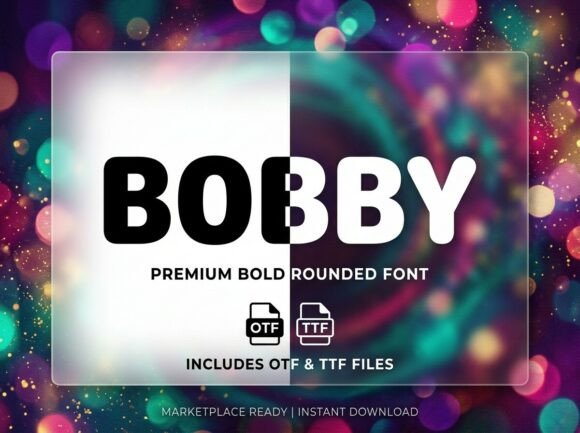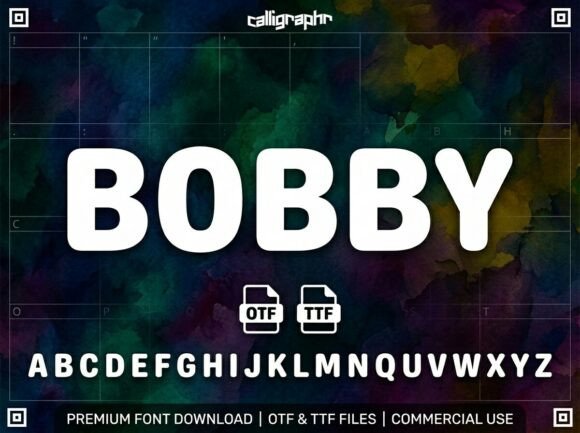
Introducing Bobby Font: A Stunning Decorative Display Font
Are you tired of using the same old fonts for your designs? Do you want to add a touch of uniqueness and creativity to your projects? Look no further than Bobby Font, a decorative display font designed to turn heads. With its artistic elements and strong visual personality, this font is perfect for creators who want to break away from the ordinary.
What Makes Bobby Font Special?
Bobby Font is a versatile decorative display font that is perfect for bold headlines, artistic logos, and creative packaging. Its unique design elements and strong visual personality make it an excellent choice for designers who want to add a touch of sophistication and elegance to their projects. Whether you’re working on a branding project, a marketing campaign, or a personal design venture, Bobby Font is sure to make a statement.
Key Features of Bobby Font
- Unique Artistic Elements: Bobby Font features unique artistic elements that set it apart from other fonts. Its design is carefully crafted to provide a strong visual personality that grabs attention.
- All-Caps Design: This font is specifically designed as an all-caps display typeface, making it perfect for high-impact headlines, logos, and decorative initials.
- Professional and Polished Finish: Despite its bold and artistic design, Bobby Font maintains a professional and polished finish, making it suitable for a wide range of design projects.
- Versatile: Bobby Font can be used for a variety of design projects, including bold headlines, artistic logos, and creative packaging.
IMPORTANT NOTE BEFORE PURCHASE: This font is an ALL-CAPS (Uppercase Only) display typeface. It does not include lowercase letters. It is specifically designed for high-impact headlines, logos, and decorative initials where every letter is a work of art.
Why Choose Bobby Font?
There are many reasons why Bobby Font stands out from other fonts. Here are a few:
- Uniqueness: Bobby Font offers a unique design that will set your project apart from others.
- Versatility: This font can be used for a wide range of design projects, from bold headlines to artistic logos.
- Professionalism: Despite its bold design, Bobby Font maintains a professional and polished finish.
- Use it for headlines: Bobby Font is perfect for bold headlines and titles.
- Experiment with sizes: Try using Bobby Font in different sizes to create visual interest.
- Pair it with other fonts: Bobby Font pairs well with other fonts, so feel free to experiment with different combinations.
Bobby Font is a stunning decorative display font that is perfect for designers and crafters who want to add a touch of uniqueness and creativity to their projects. With its artistic elements, strong visual personality, and versatility, this font is sure to make a statement. Whether you’re working on a branding project, a marketing campaign, or a personal design venture, Bobby Font is an excellent choice.